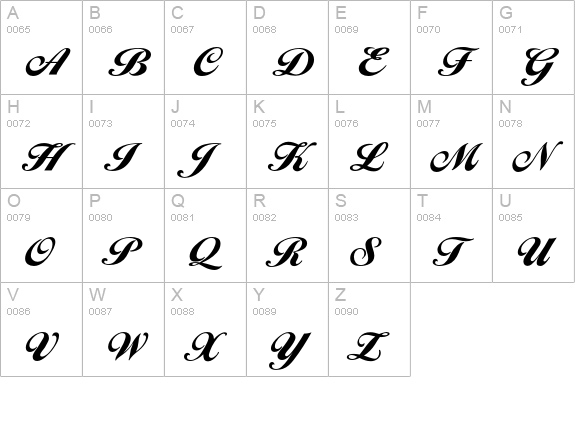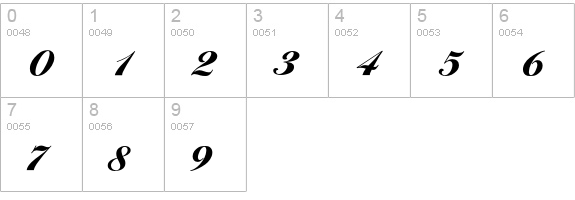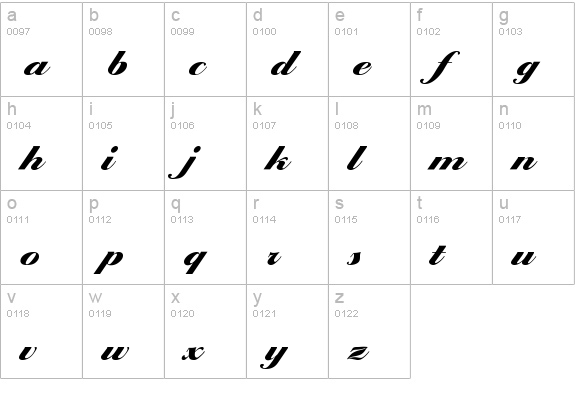
BallantinesScriptEF-Heavy is a heavy, high-impact variant in the BallantinesScriptEF typeface family \xE2\x80\x94 well suited to high-impact headlines, posters, and display advertising.
BallantinesScriptEF-Heavy font is a bold and elegant typeface that exudes sophistication and charm. With its intricate script style and heavy weight, this font is perfect for creating eye-catching designs that demand attention. Whether you're working on invitations, logos, or branding materials, BallantinesScriptEF-Heavy will add a touch of luxury to your projects. The best part is that BallantinesScriptEF-Heavy font is available for free download at FontsMarket.com. This means you can easily access this stunning font and elevate your designs without breaking the bank. Don't miss out on the opportunity to enhance your creative projects with the beauty and versatility of BallantinesScriptEF-Heavy font. Download it today and let your imagination run wild!